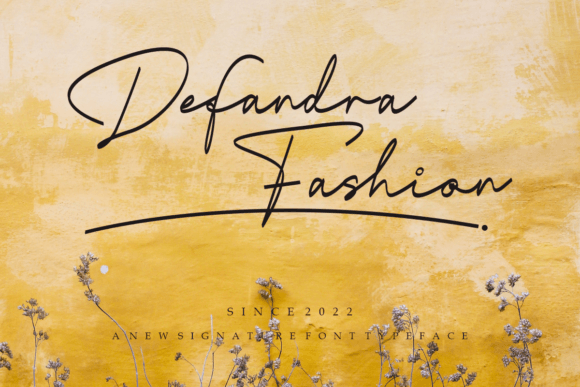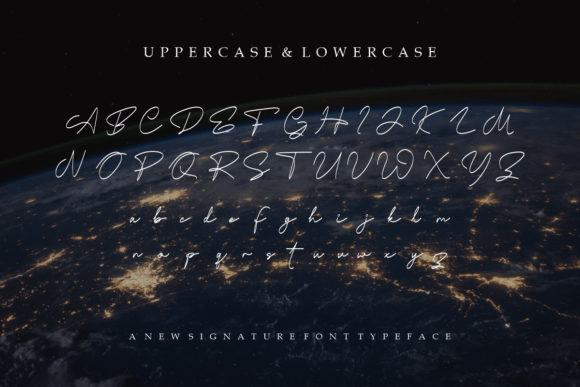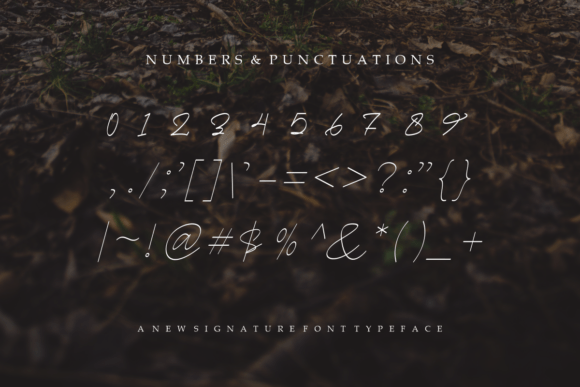
Mast Child Signature Font: Free Download Now
Introduction to Mast Child Signature Font
Mast Child Signature is a simple and delicate script font.
This minimalist and clean vibe can easily apply to your favorite designs such as book covers, magazines, social media posts, invitations, and so much more .
Why Choose Mast Child Signature Font?